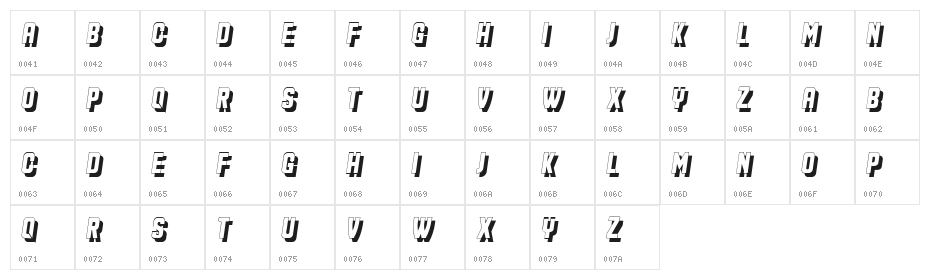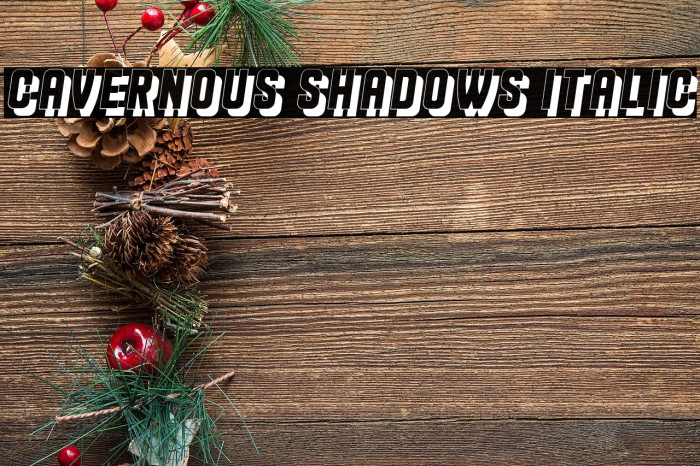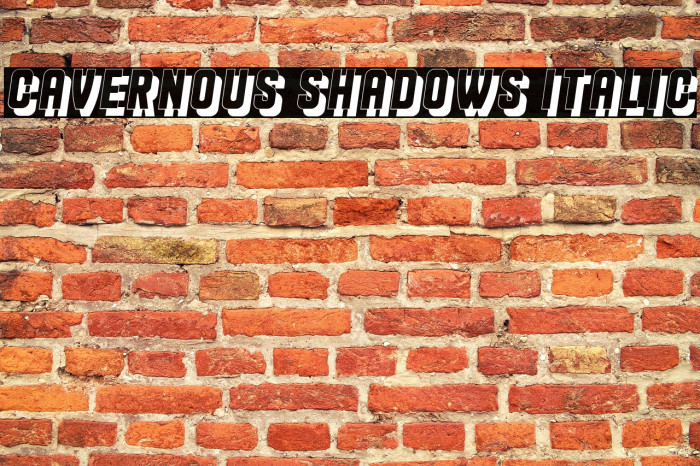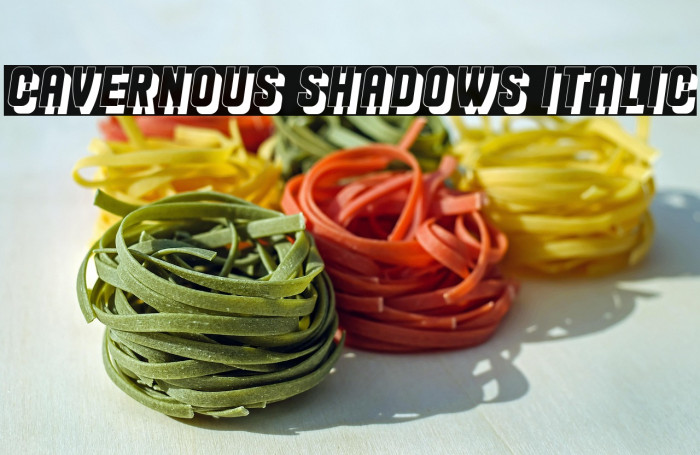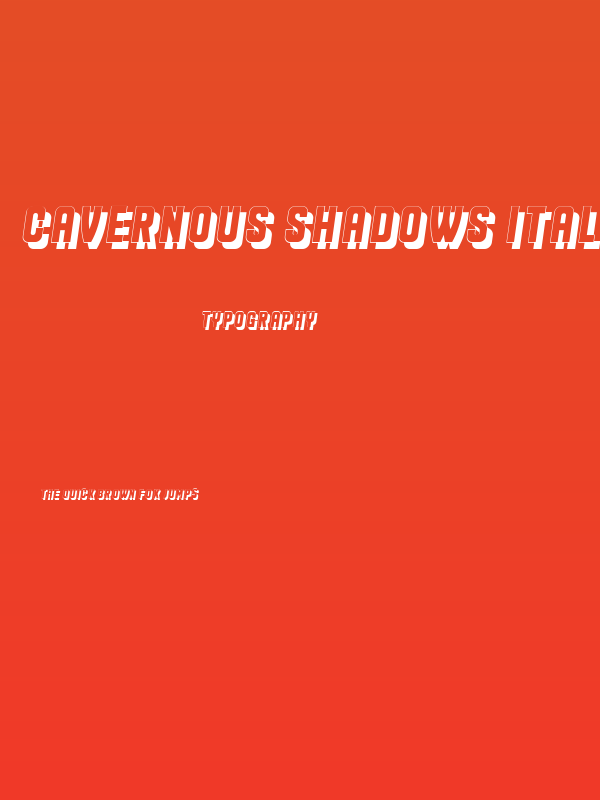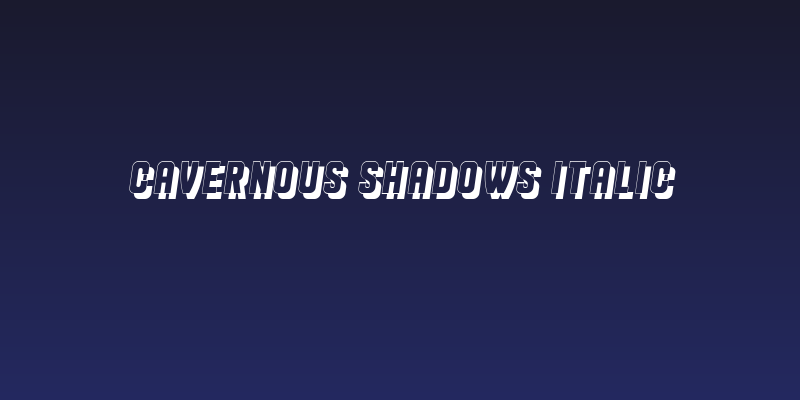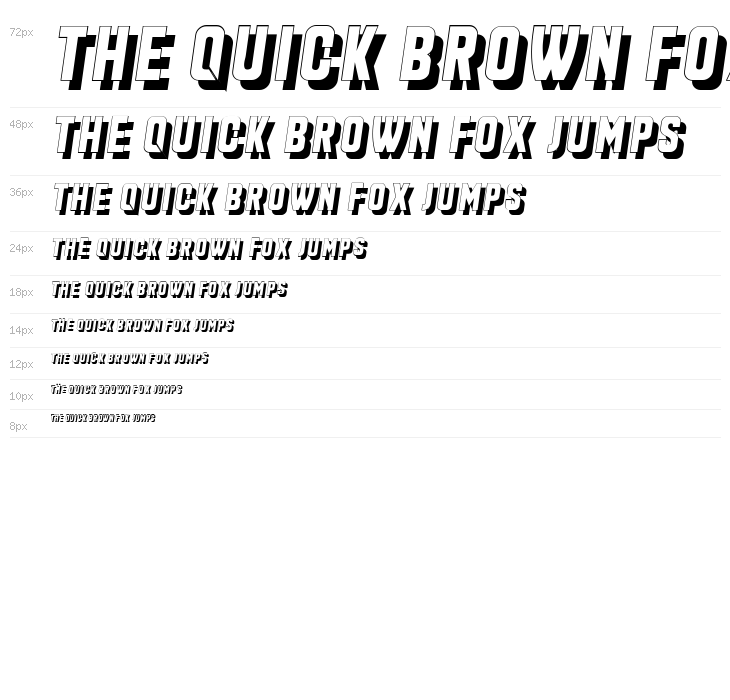
Cavernous Shadows Italic Font
Cavernous Shadows Italic Description
This font features bold, uppercase letters with a distinct shadow effect that gives it a three-dimensional appearance. The italicized style adds a dynamic and forward-moving feel, making it stand out. The characters are well-defined with sharp edges and a consistent stroke width, contributing to its modern and impactful look. The shadowing is uniform across all characters, enhancing the depth and visual interest. This font is ideal for creating eye-catching headlines or logos that require a strong presence.